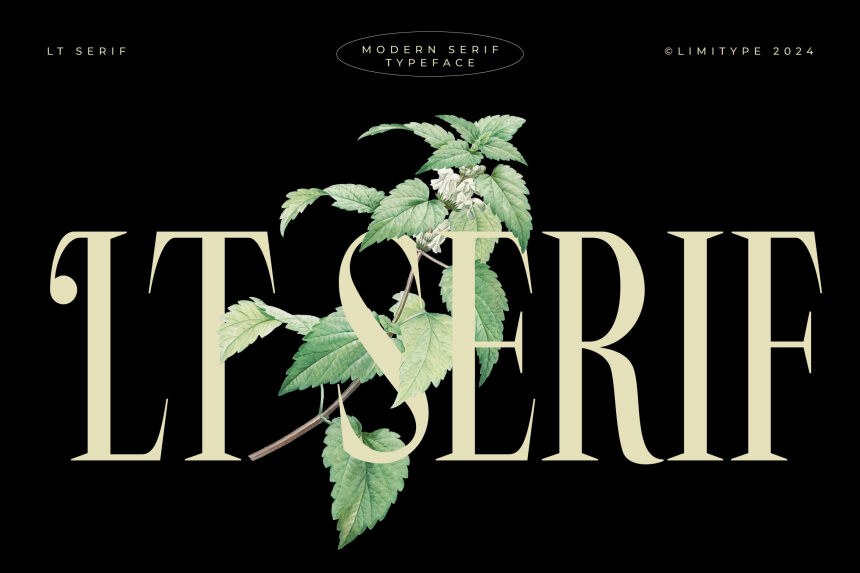
LT Serif is a captivating serif font designed by Muhammad Muammar of Limitype. With its condensed width and classic serif style, this typeface exudes a sense of timeless sophistication and refined elegance. The sharp, angular terminals and the harmonious balance between the thick and thin strokes create a visually striking impression, lending an air of authority and gravitas to any text.
LT Serif's versatility makes it a compelling choice for a wide range of design applications, from editorial and publishing projects to branding and corporate communications. Its legible and refined aesthetic lends itself particularly well to longer-form content, such as books, magazines, and websites, where its high readability and elegant presence can elevate the overall design aesthetic.
LT Serif